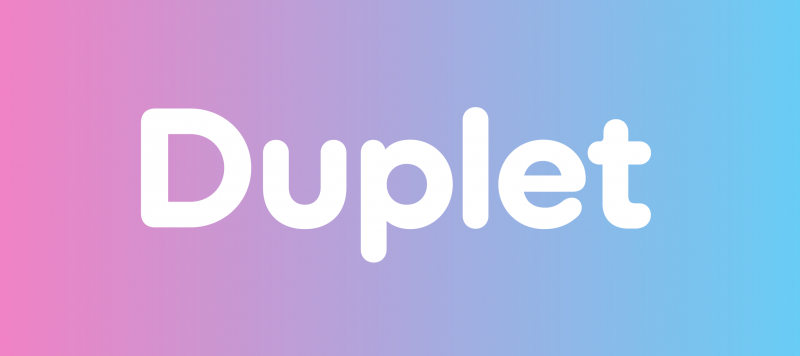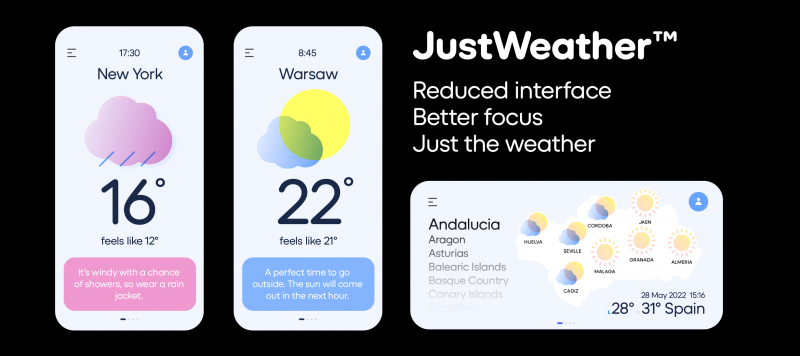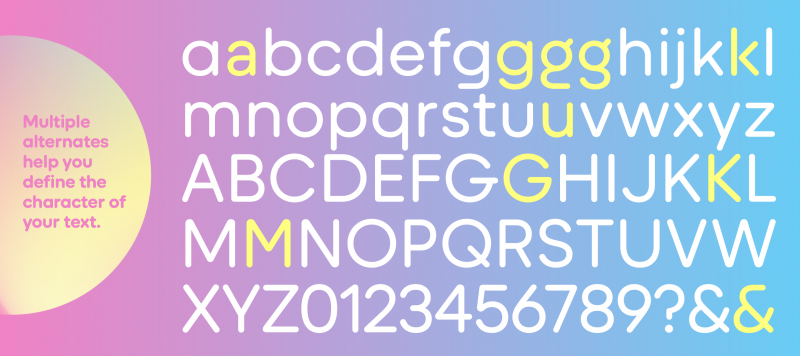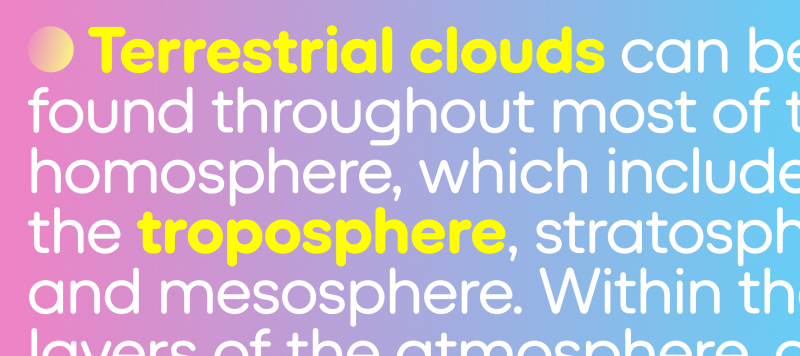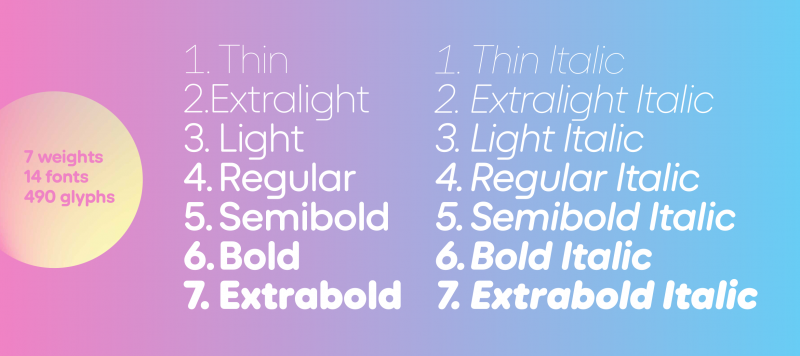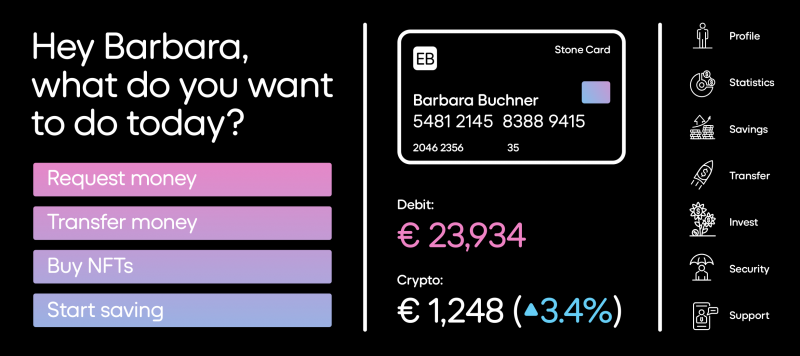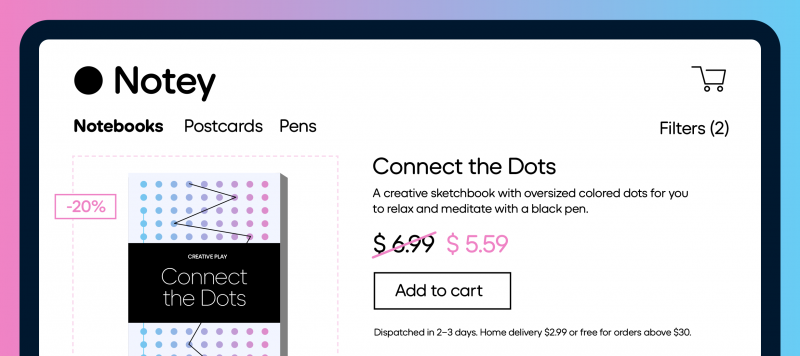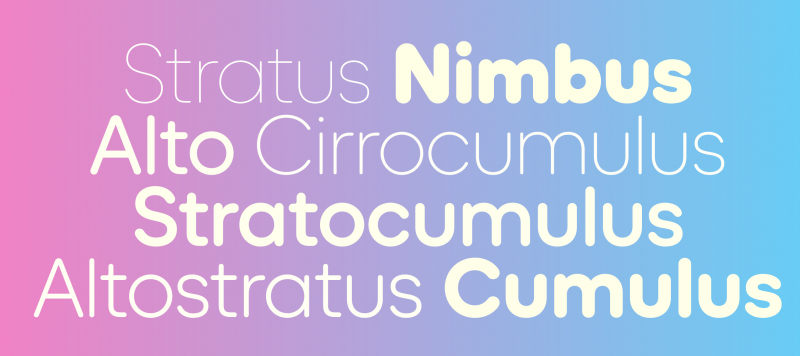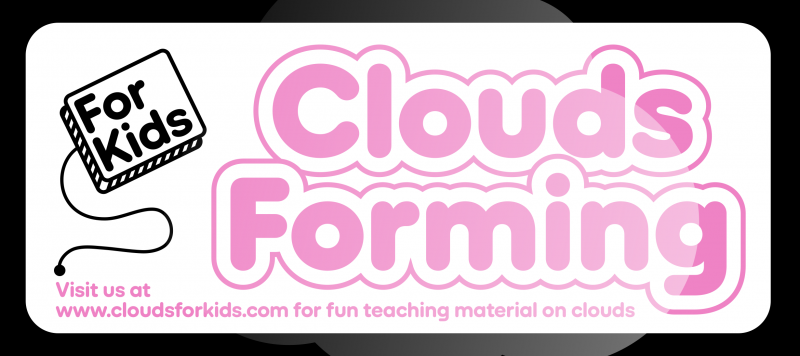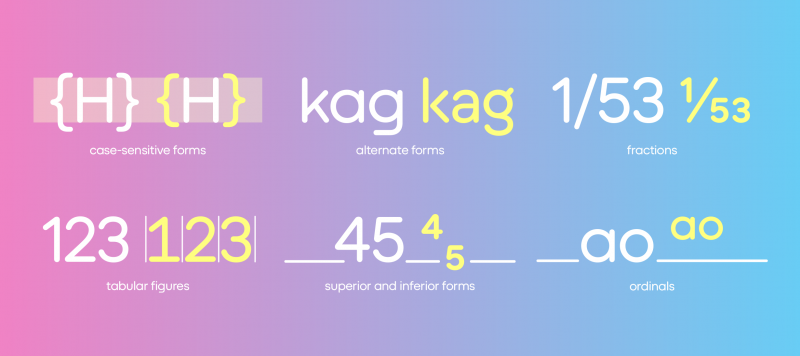
When you are looking for a typeface that can carry a tech message to readers, helps make communication easier and looks good, too – chances are high that you’ll select a geometric sans serif. These are the typefaces of today and tomorrow. From the headlines on news websites to the texts in apps and even company logos rendered large or small, geometric sans serifs are everywhere. Duplet Rounded, all stroke terminals have been, well, rounded off. Those endings make the typeface immediately appear soft and friendly.
Since it is part of the Duplet superfamily, you can combine Duplet Rounded with its relatives: Duplet Open and Duplet. Each contains seven weights ranging from Thin through ExtraBold, all with companion italics. The fonts include more than 450 glyphs, covering all the European languages written with the Latin script.
Since the Duplet Rounded fonts are geometric, the round characters and round-parts of letters appear either as circles or slanted circular forms (like you see in the italics). Duplet Rounded’s letterforms are very low-contrast, with stroke that seem even in thickness.
The default form of the ‘a’ in each font is single-storey. The large round bowl drives Duplet Rounded’s inherent geometry home! But there is a double-storey ‘a’ as an OpenType alternate ‘a’. The default ‘g’ is also single-story, and its bottom stroke is flattened, giving it a streamlined, less-complicated look. Duplet Rounded’s fonts feature three more ‘g’ versions as alternate characters.
There are alternates for ‘k’, ‘u’, ‘G’, ‘K’, and ‘M’, as well as the ampersand (&). The character sets include case-sensitive forms, too — punctuation marks that are vertically repositioned and look better in all-caps texts. When it comes to numerals, both proportional and tabular lining figures are there, as well as fractions, superior numerals, and inferiors. Diana Ovezea and Rafał Buchner designed this typeface with great attention to detail.